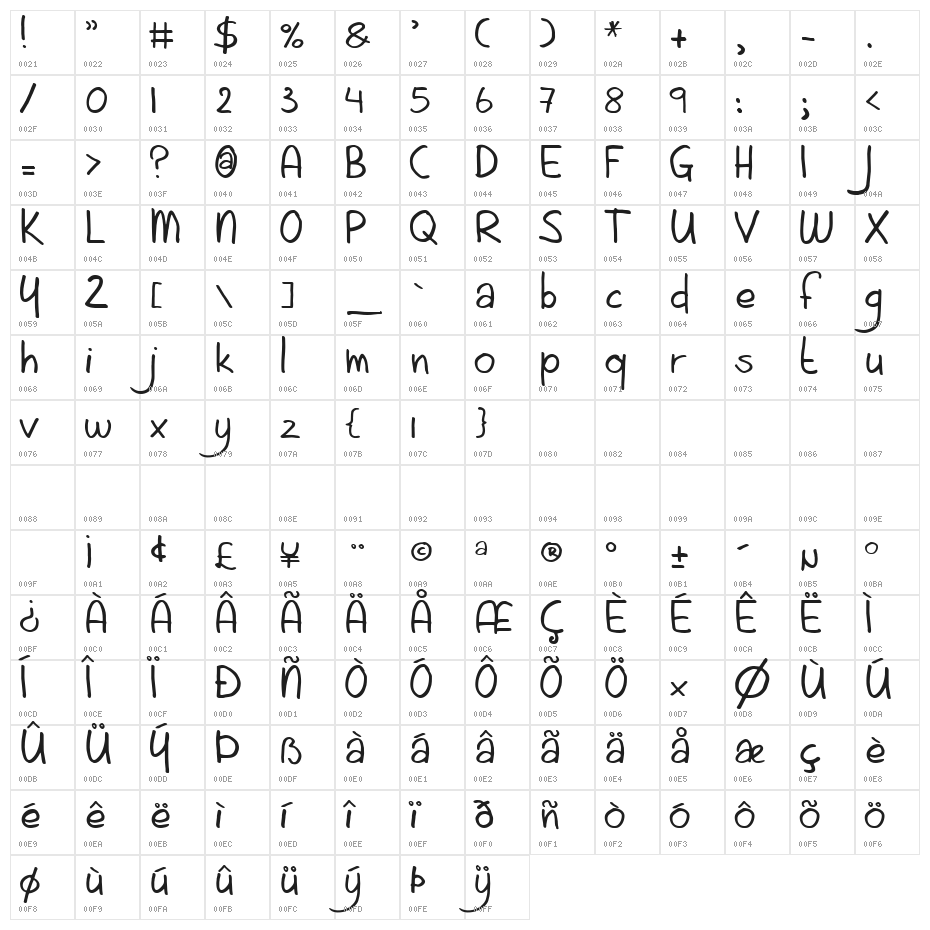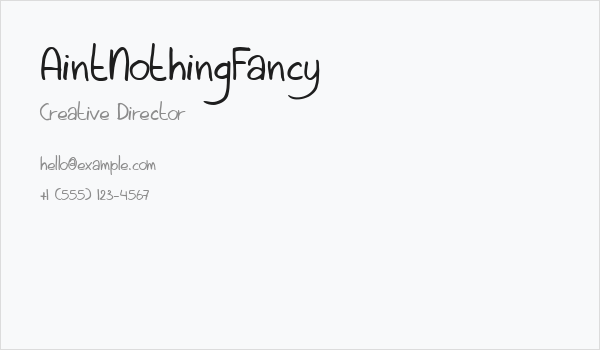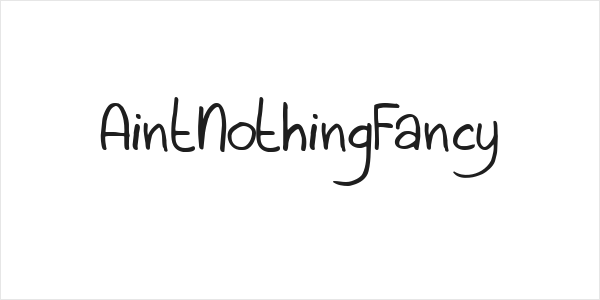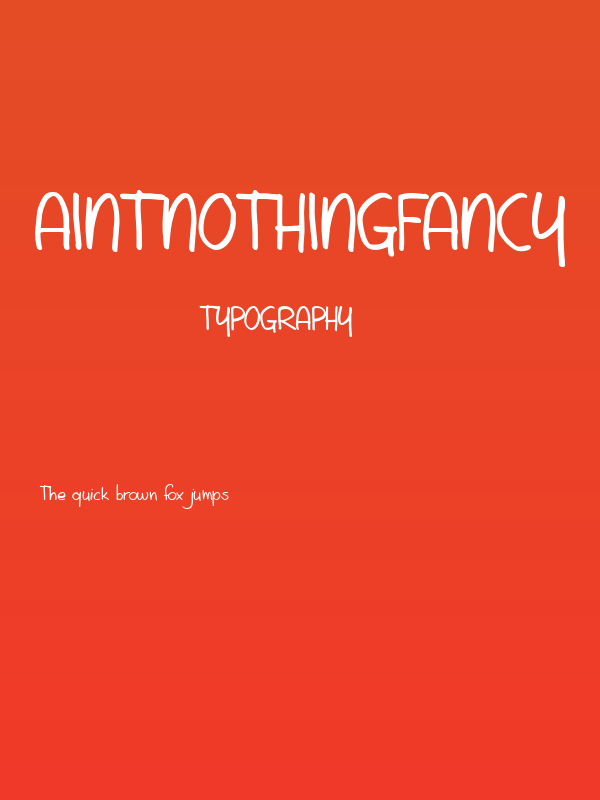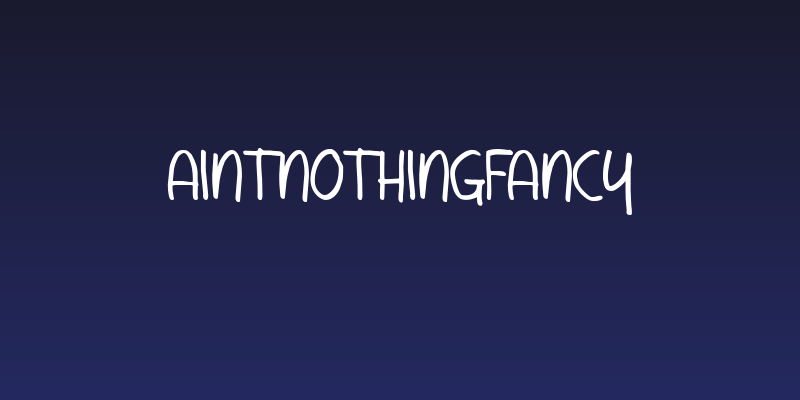
AintNothingFancy Font
✎ Handwritten
| 整体风格 | Casual |
| 使用场景 | Headlines, Informal text, Creative projects |
| 推荐项目 | Ideal for greeting cards, children's books, personal branding, and social media graphics. |